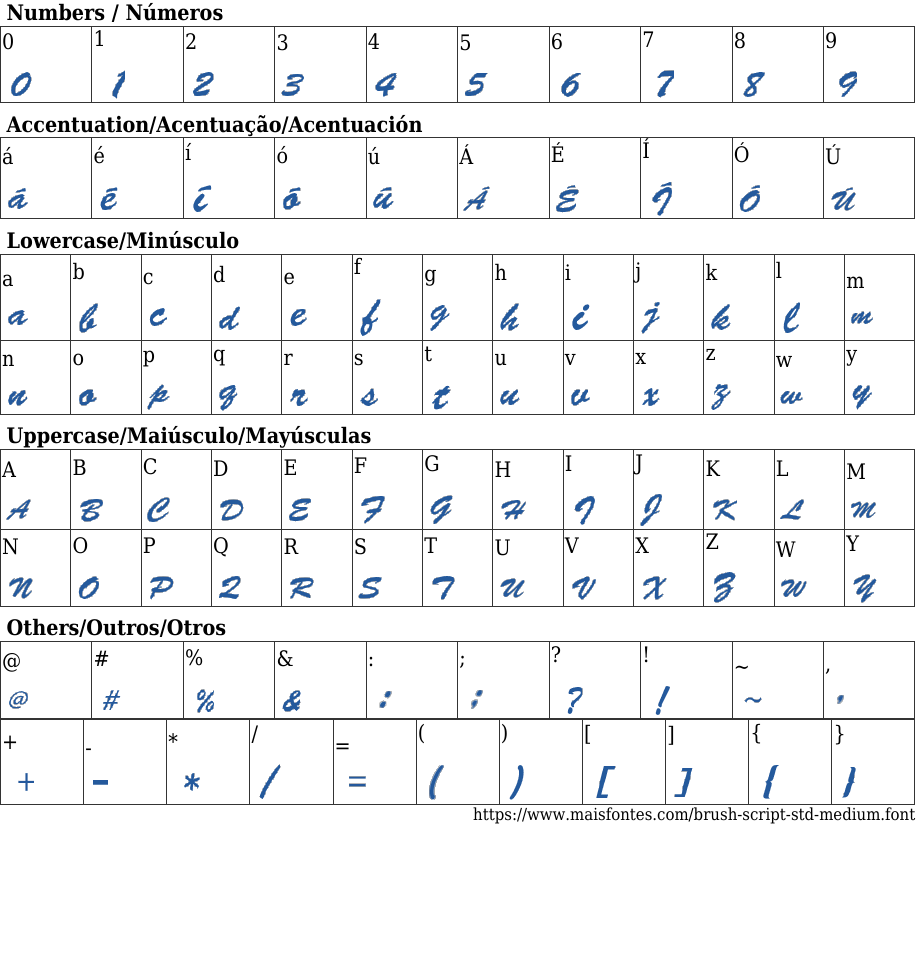
Brush Script Std Medium Font . Make the art more fun because you've already chosen the right font. With its flowing brush strokes. Explore brush script designed by robert e. Discover the free brush script std medium font at free font download ! 'find my font' is an easy to use application for identifying fonts in digital images. A script typeface with 1 style, available from adobe fonts for sync and web. Brush script std is a brush script font family published by. The brush script std medium font has a script typography and is great for elegant invitation art. Brush script std medium is a stylish and elegant font that exudes a sense of creativity and sophistication. Installable on pc, mac, linux, ios, and android platforms.
Discover the free brush script std medium font at free font download ! 'find my font' is an easy to use application for identifying fonts in digital images. Installable on pc, mac, linux, ios, and android platforms. A script typeface with 1 style, available from adobe fonts for sync and web. With its flowing brush strokes. The brush script std medium font has a script typography and is great for elegant invitation art. Explore brush script designed by robert e. Brush script std medium is a stylish and elegant font that exudes a sense of creativity and sophistication. Brush script std is a brush script font family published by. Make the art more fun because you've already chosen the right font.
Brush Script Std Medium Font Installable on pc, mac, linux, ios, and android platforms. The brush script std medium font has a script typography and is great for elegant invitation art. Explore brush script designed by robert e. Make the art more fun because you've already chosen the right font. Installable on pc, mac, linux, ios, and android platforms. Brush script std medium is a stylish and elegant font that exudes a sense of creativity and sophistication. 'find my font' is an easy to use application for identifying fonts in digital images. Discover the free brush script std medium font at free font download ! With its flowing brush strokes. A script typeface with 1 style, available from adobe fonts for sync and web. Brush script std is a brush script font family published by.
Brush Script Std Medium Download for free at Free Fonts Brush Script Std Medium Font Installable on pc, mac, linux, ios, and android platforms. Brush script std is a brush script font family published by. With its flowing brush strokes. Brush script std medium is a stylish and elegant font that exudes a sense of creativity and sophistication. The brush script std medium font has a script typography and is great for elegant invitation art.. Brush Script Std Medium Font.
Brush Script Font Free Download Brush Script Std Medium Font Brush script std is a brush script font family published by. With its flowing brush strokes. Brush script std medium is a stylish and elegant font that exudes a sense of creativity and sophistication. Discover the free brush script std medium font at free font download ! Explore brush script designed by robert e. 'find my font' is an easy. Brush Script Std Medium Font.
Brush Script Std Medium Download For Free, View Sample Text, Rating Brush Script Std Medium Font 'find my font' is an easy to use application for identifying fonts in digital images. Brush script std medium is a stylish and elegant font that exudes a sense of creativity and sophistication. Brush script std is a brush script font family published by. Installable on pc, mac, linux, ios, and android platforms. Explore brush script designed by robert e.. Brush Script Std Medium Font.
Brush Script Std Font Brush Script Std Medium Font Brush script std is a brush script font family published by. 'find my font' is an easy to use application for identifying fonts in digital images. A script typeface with 1 style, available from adobe fonts for sync and web. The brush script std medium font has a script typography and is great for elegant invitation art. Brush script std. Brush Script Std Medium Font.
Brush Script Std Medium Free Font Download MaisFontes Brush Script Std Medium Font Discover the free brush script std medium font at free font download ! Installable on pc, mac, linux, ios, and android platforms. Explore brush script designed by robert e. With its flowing brush strokes. The brush script std medium font has a script typography and is great for elegant invitation art. Brush script std is a brush script font family. Brush Script Std Medium Font.